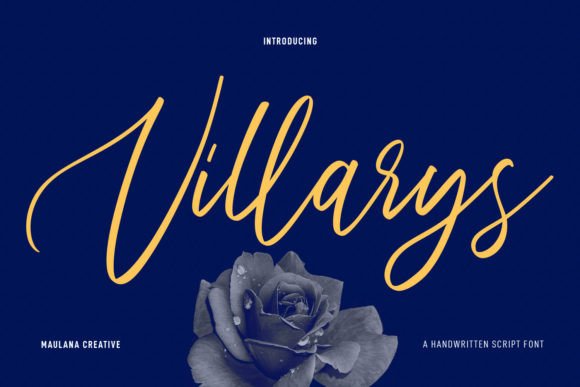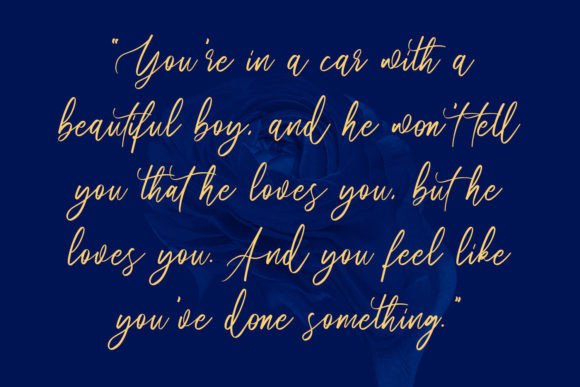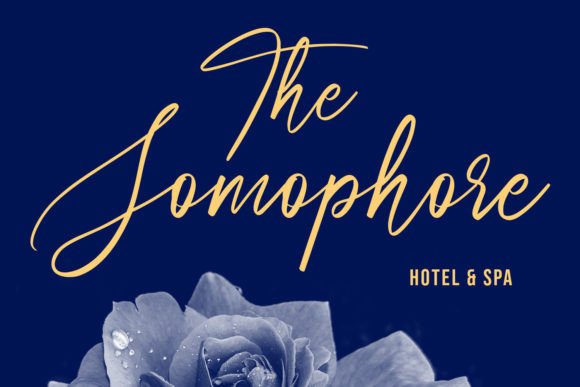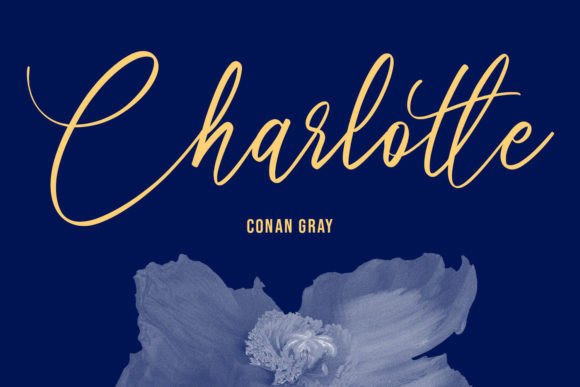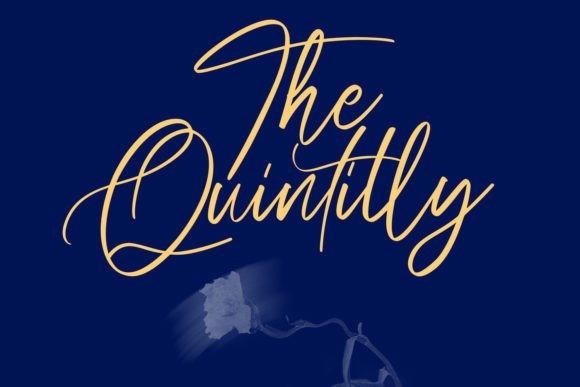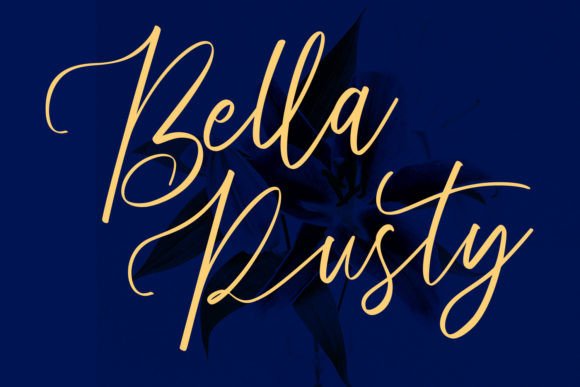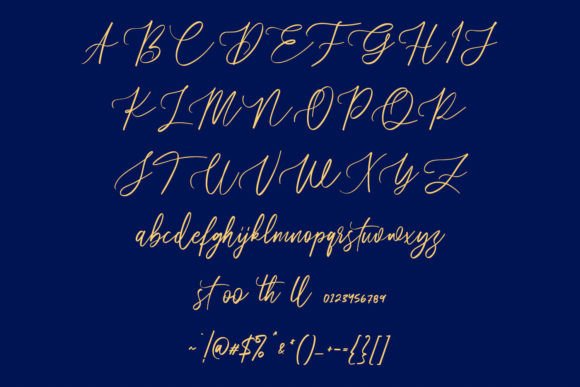
About Villarys Font
The Villarys Font Download is a delicate and elegant script typeface crafted to bring sophistication and charm to your projects. With graceful strokes and a timeless handwritten style, Villarys radiates class while maintaining a refreshing modern look. This font is perfect for anyone who wants to elevate their designs with beauty and elegance.
Features of Villarys Font
By choosing the Villarys Font Download, you enjoy:
A refined script style with smooth, flowing curves
Elegant design that enhances readability and visual appeal
Versatility for both print and digital media
A balance of modern freshness with classic sophistication
A graceful typeface that leaves a lasting impression
Best Uses for Villarys Font
The Villarys Font Download can be applied in a wide range of creative projects, such as:
Wedding invitations – Add romance and sophistication to your special day
Logos and branding – Create stylish and elegant brand identities
Greeting cards – Bring warmth and refinement to personal messages
Social media graphics – Add a chic handwritten touch to posts and stories
Posters and advertisements – Catch attention with a beautiful script style
Stationery and packaging – Perfect for luxury brands and personal projects
Why Choose Villarys Font
Unlike many script typefaces, the Villarys Font Download combines elegance with readability. Its delicate strokes create a timeless aesthetic that works for both modern and traditional designs. Designers love it for its ability to add personality and class while staying versatile across different applications.
The Villarys Font Download is the perfect choice for those seeking a script typeface that exudes elegance, beauty, and class. With its refined curves and graceful presence, this font is ideal for weddings, branding, invitations, and any project that calls for a touch of sophistication.